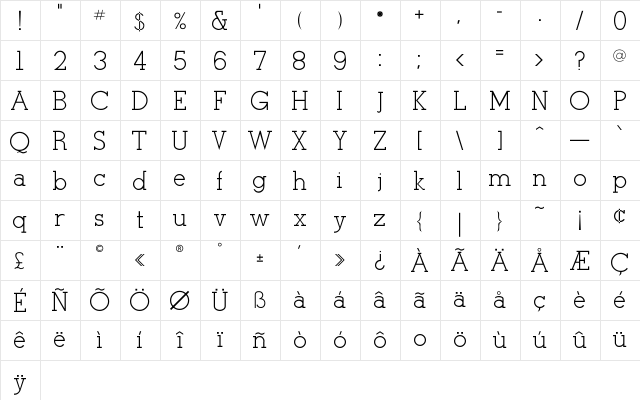
Stymix Regular
Design Context for Stymix Typeface
Stymix takes a measured approach to typography — its balanced proportions and neutral character make it a reliable workhorse for both digital and print work.